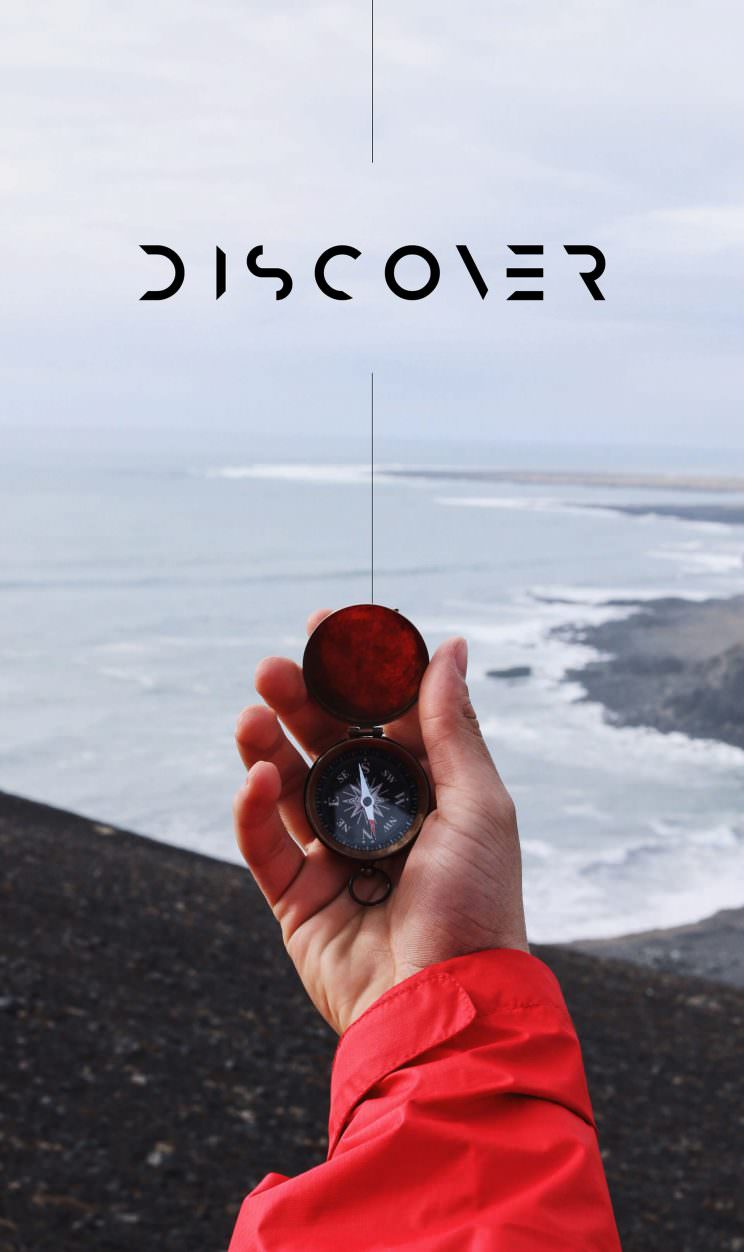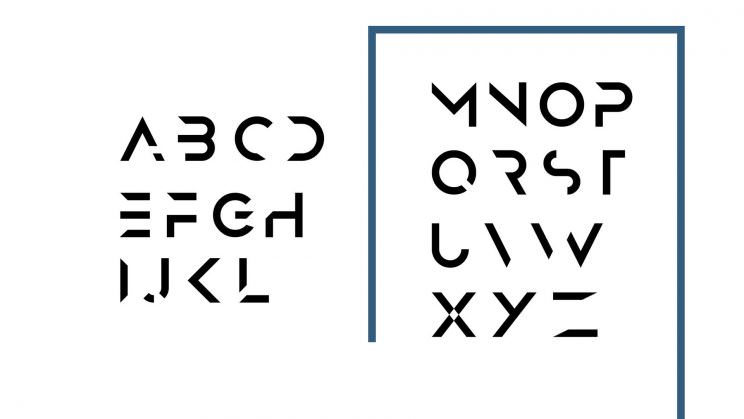
Have a look at this futuristic font called “Anurati”. It looks amazing, it’s got a sci-fi touch and works great for high tech logo designs and brands. The font comes with uppercase letters only and with a free to use personal and commercial licence. Take your futuristic projects to the next level with the help of Anurati.